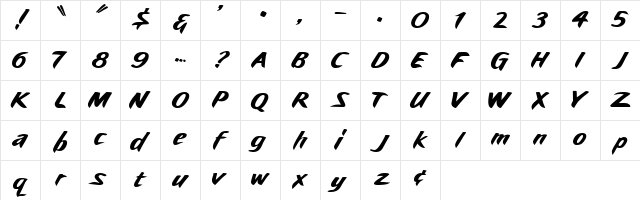
Design Context for 0 CazFat DNA
0 CazFat DNA is a composed and adaptable typeface that performs quietly and consistently across a wide range of design contexts.
Pro Tip: Use 0 CazFat DNA in both headline and body roles to test its range before committing to a single application.